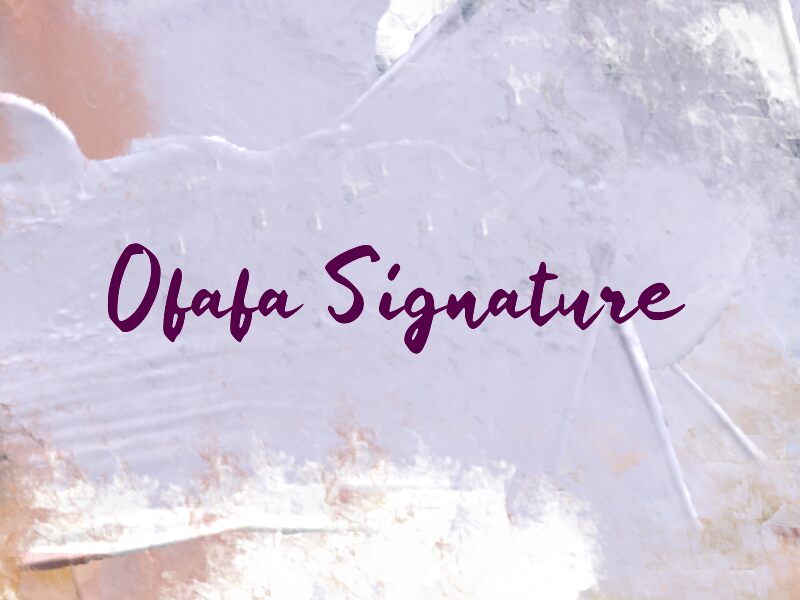
Ofafa Signature font by wep is a free brush font that beautifully captures the fluidity and expressiveness of a handwritten note. It is a font that beautifully incorporates an elegant yet modern touch into any of your projects with lovely visual results. Its smooth flow gives it a personal touch and an artistic flair that is well suited for contemporary applications.
Versatile and multipurpose, Ofafa Signature can be used to elegantly personalize business cards or online portfolio sites. Use it for signage, branding projects, invitations, stationery, and packaging designs. Even printed quotes, magazine covers, posters, and product labels can get an upgrade with Ofafa Signature.
Ofafa Signature is a beautifully crafted free font that adds a touch of elegance to any project. With its stylish cursive design, it is perfect for invitations, branding, and personal designs. Easily download this free font and elevate your creative work with its sophisticated flair.